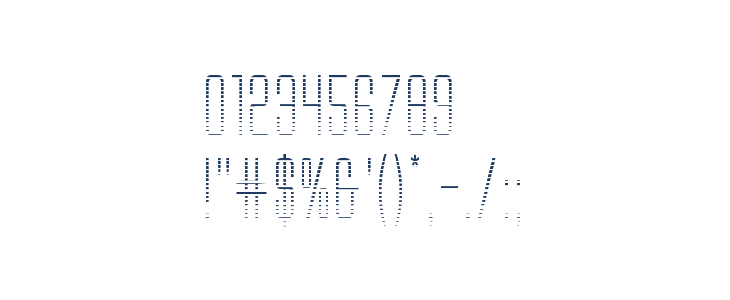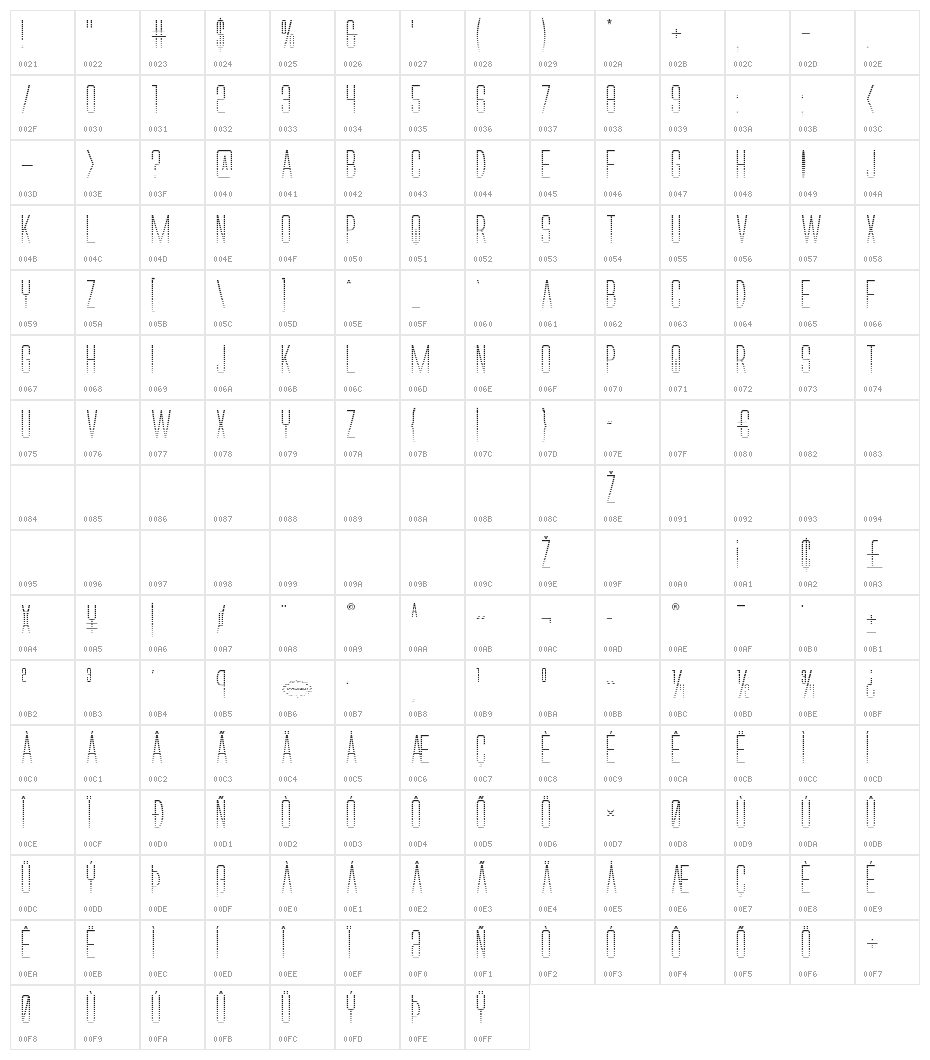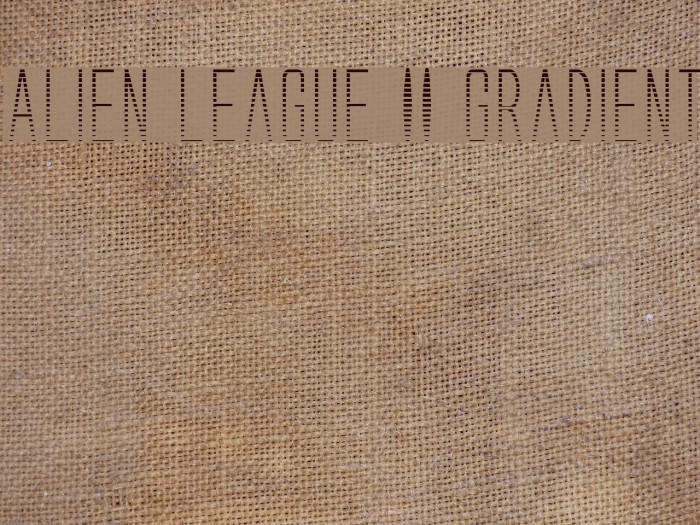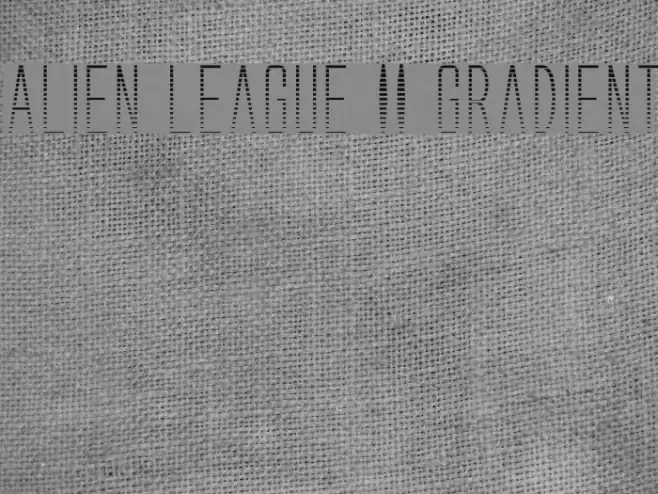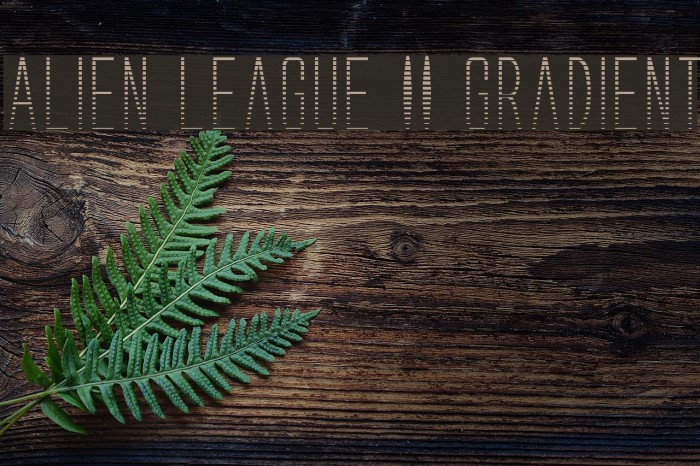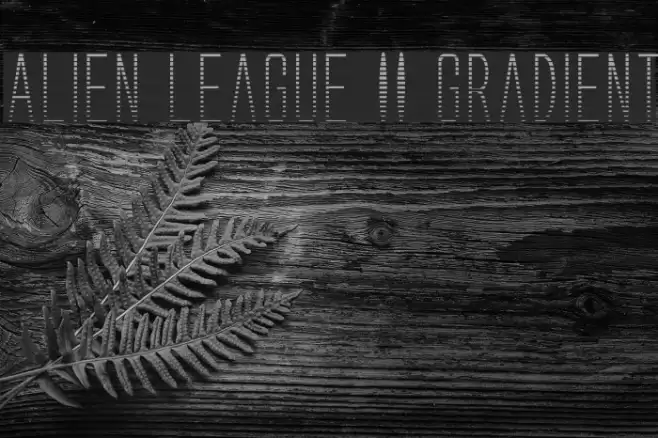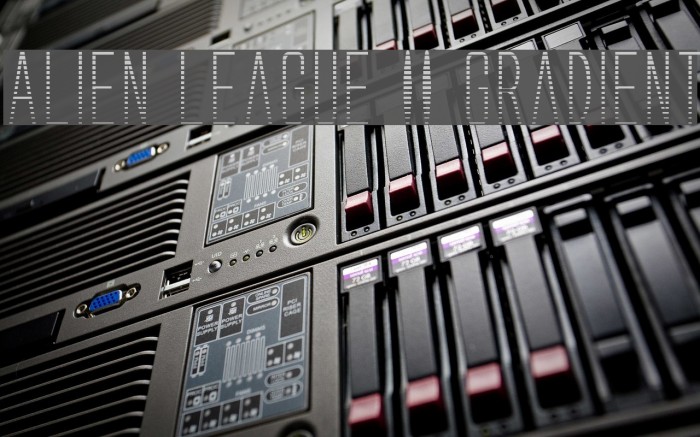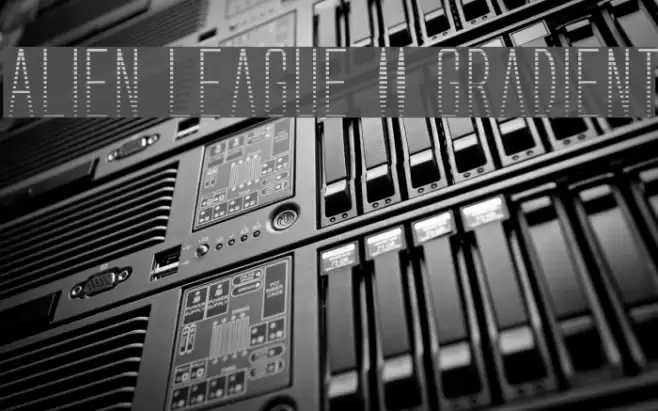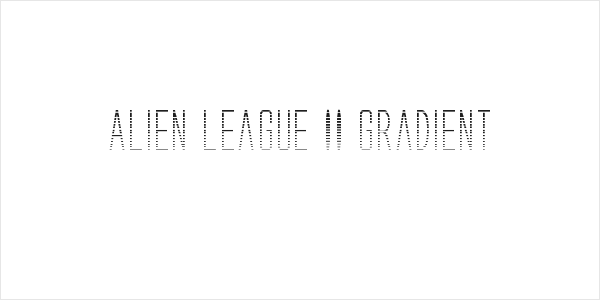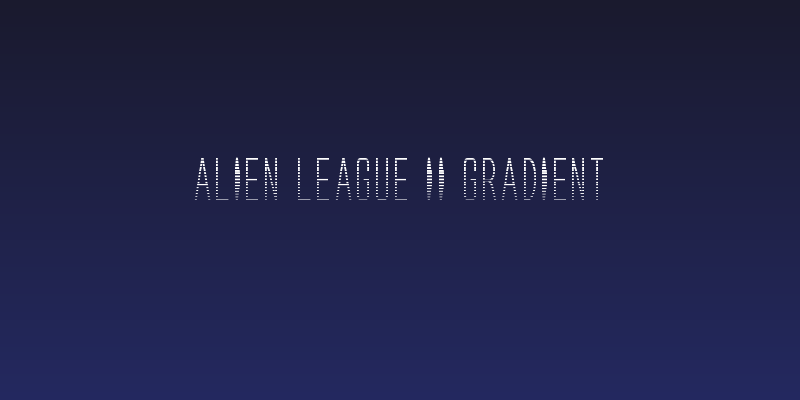
Alien League II Gradient Font
Alien League II Gradient Description
This font features a futuristic and digital aesthetic, characterized by its unique gradient effect created through a series of horizontal lines. The uppercase and lowercase letters maintain a consistent height, giving it a monospaced appearance, while the numbers and special characters follow the same stylistic approach. The design is sleek and modern, with a slightly condensed width that enhances its digital feel. The font's distinct style makes it ideal for projects that require a tech-savvy or sci-fi theme, offering a visually striking look that stands out.
| Proposed Projects | Ideal for sci-fi themed designs, tech-related branding, digital interfaces, and modern posters. |